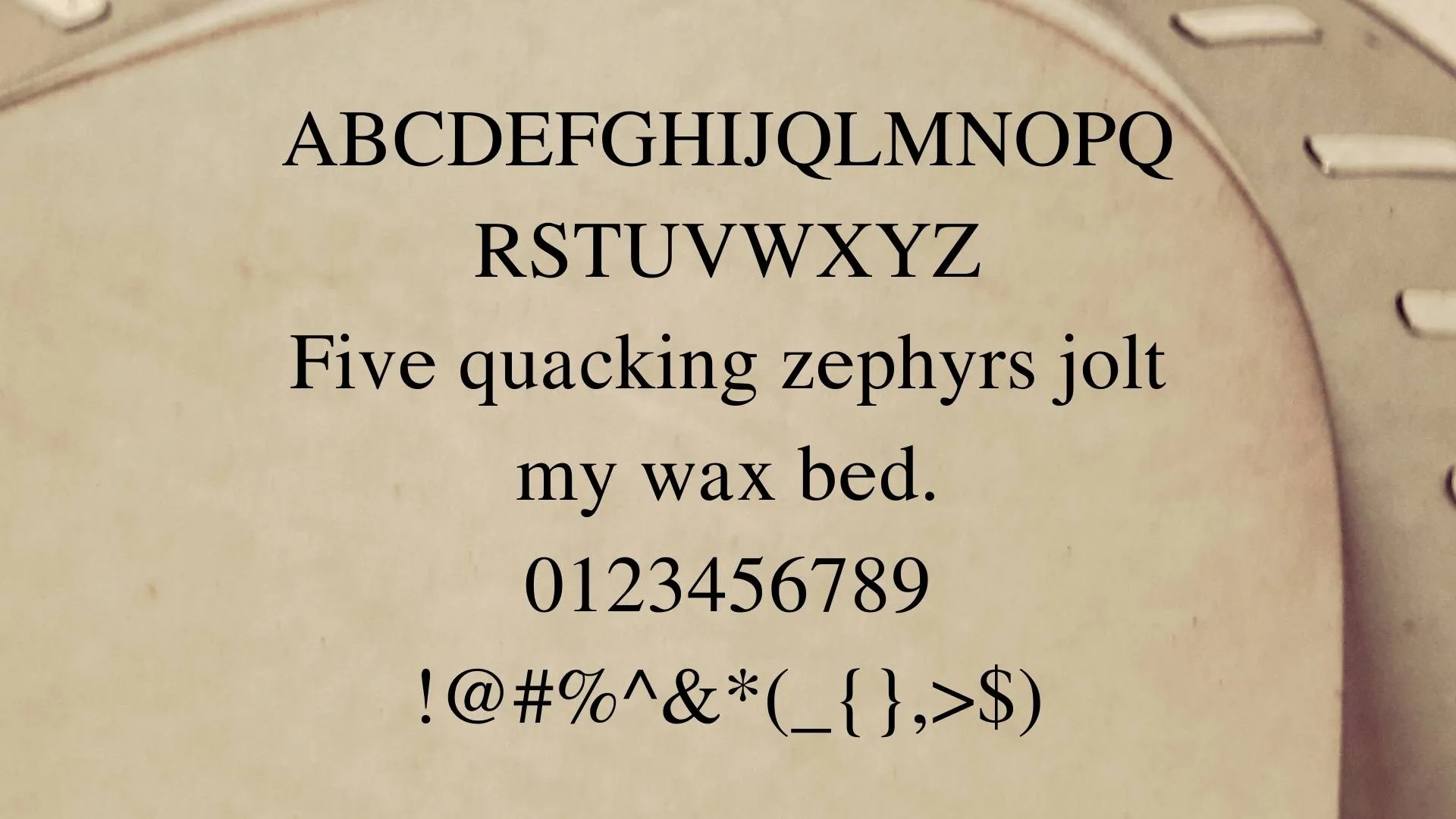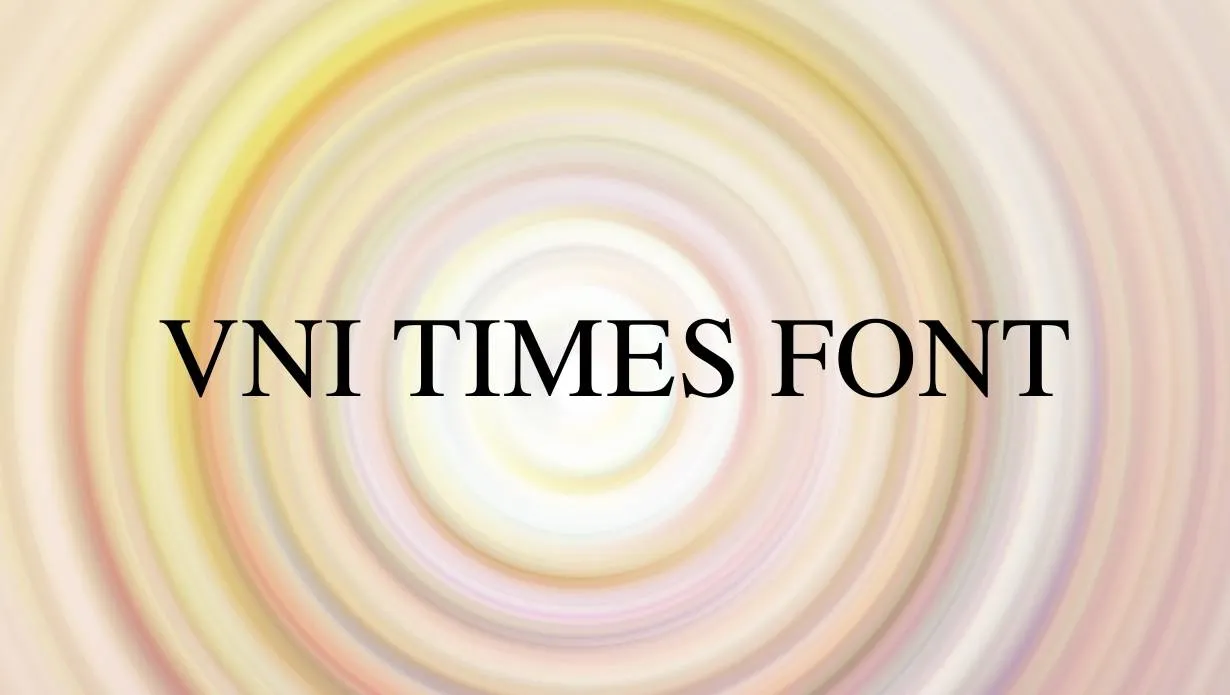
About VNI Times Font
VNI Times Font is a Vietnamese encoding serif typeface designed specifically for Vietnamese language support. This font provides excellent readability for Vietnamese text while maintaining a professional appearance.
Font Features
- Complete Vietnamese character set
- Optimized for print and screen
- Professional serif design
- Excellent readability at all sizes
- VNI Times Regular
- VNI Times Bold
- VNI Times Roman